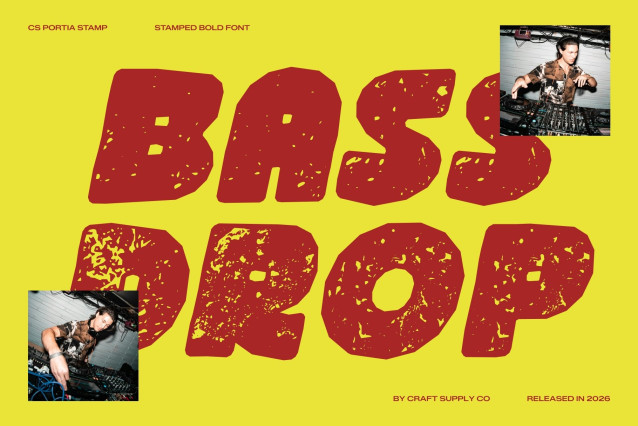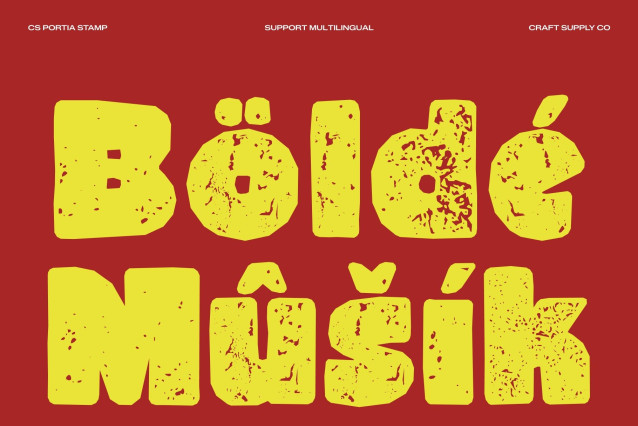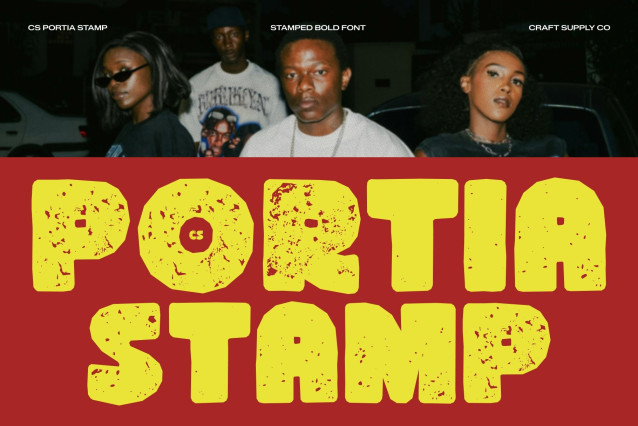
CS Portia Stamp – Bold Sans Serif Display Font: Where Funky Energy Meets Vintage Expression
Strong Bold Shapes with Playful Attitude
This Stamp is a bold sans serif display font designed with strong shapes and a funky edge that instantly captures attention. Its energetic structure creates a lively and unconventional appearance, bringing excitement, personality, and dynamic movement to every composition. The bold forms deliver powerful visual impact while maintaining a fun and approachable character.
Expressive Style with Modern Funky Flair
This font offers a typographic style full of energy and individuality. Its bold proportions and rhythmic forms create a cheerful and expressive visual identity, making the font perfect for designs that aim to feel fresh, daring, and memorable.
Stamped Texture with Vintage Artistic Feel
This font introduces a handcrafted finish inspired by traditional print techniques. The slightly rough and organic texture adds artistic depth, vintage character, and authentic old-design charm to every letter. This textured detail enriches the bold forms with warmth and expressive personality.